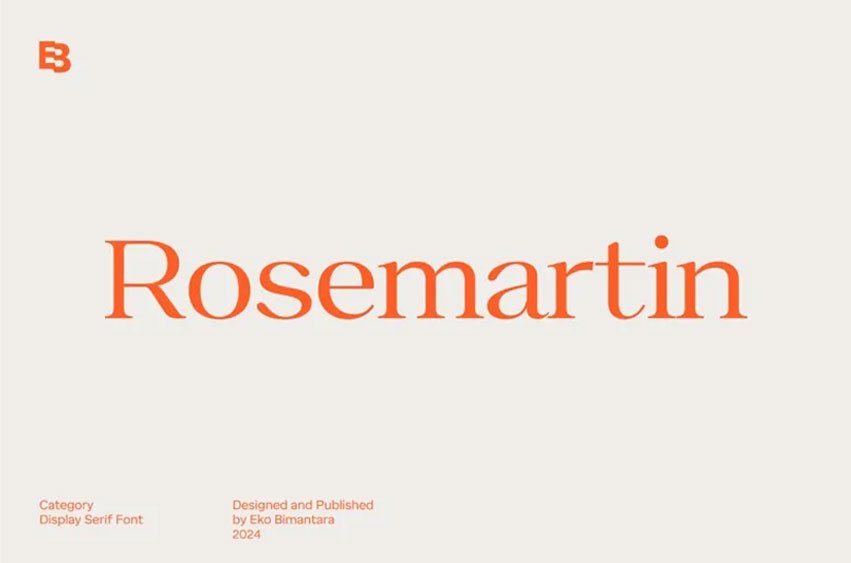
Rosemartin Font
Rosemartin Font is an elegant display serif font, which gives it a shabby and unique look. Rosemartin is also suitable for use in monograms, logos as well as in branding materials because of the unique shape that is easily memorable to the eye.
It is true across poster design where it can be used to create typography that is strong enough to capture attention of the audience.